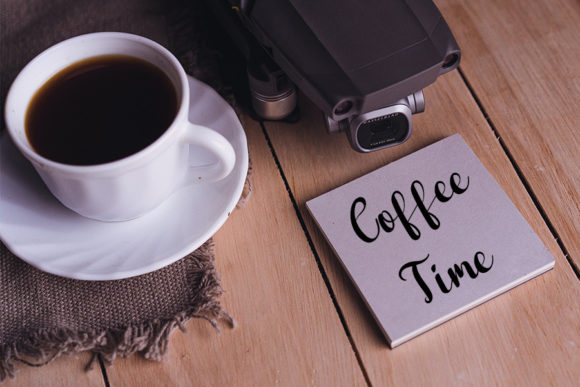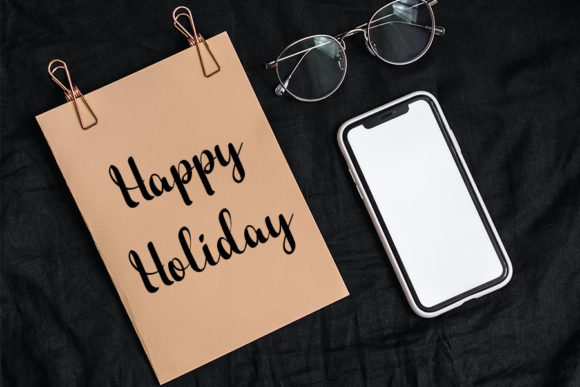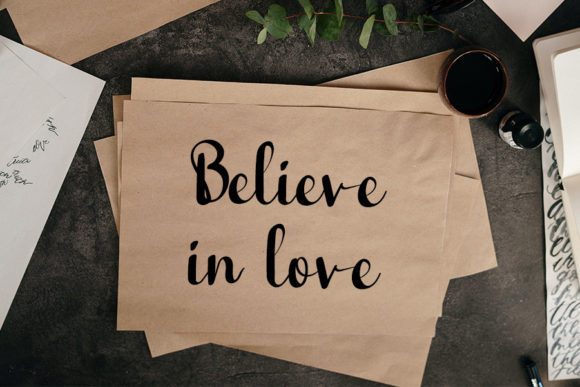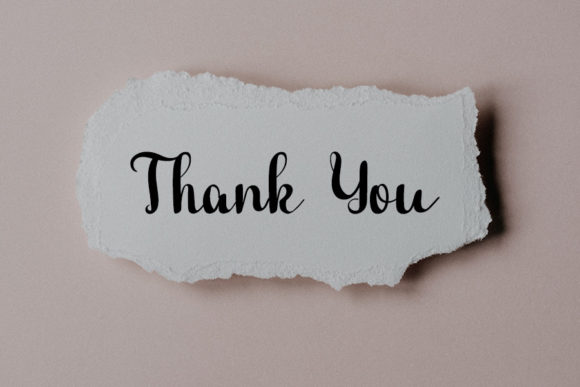
Introducing Cheerleader Font: Elevate Your Designs with Elegance and Class
In the world of typography, fonts play a crucial role in conveying the tone and personality of a design. For designers and crafters looking to add a touch of sophistication and elegance to their projects, the Cheerleader Font is an excellent choice. This trendy handwritten font boasts a contemporary atmosphere and impeccable form, inspired by timeless classic calligraphy.
What Makes Cheerleader Font Stand Out?
Cheerleader Font is a versatile and stylish addition to any design project. Its unique characteristics make it an ideal choice for various applications, from branding and advertising to packaging and digital media. Here are some key features that set Cheerleader Font apart:
- Trendy and Contemporary: Cheerleader Font has a modern and fresh feel, making it perfect for designs that require a current and stylish look.
- Inspired by Classic Calligraphy: The font’s classic calligraphy inspiration gives it an air of sophistication and elegance, adding a touch of refinement to any design.
- Impeccable Form: Cheerleader Font features precise and clean lines, ensuring that your designs look polished and professional.
- Versatile: This font can be used for a wide range of projects, from headings and titles to body text and captions.
How to Use Cheerleader Font in Your Designs
Cheerleader Font can be used to create a variety of products, depending on your design needs. Here are some ideas to get you started:
- Branding and Logos: Use Cheerleader Font to create elegant and sophisticated logos, perfect for high-end brands and businesses.
- Advertising and Marketing: Add a touch of class to your advertising materials, such as brochures, flyers, and posters.
- Packaging: Elevate your product packaging with Cheerleader Font, adding a luxurious feel to your products.
- Digital Media: Use Cheerleader Font in your digital media, such as social media graphics, blog posts, and website headers.
Tips for Getting the Most Out of Cheerleader Font
To make the most of Cheerleader Font, here are some tips to keep in mind:
- Pair with Other Fonts: Experiment with pairing Cheerleader Font with other fonts to create a unique and visually appealing combination.
- Adjust Font Sizes: Play with different font sizes to create visual hierarchy and add emphasis to specific elements in your design.
- Use Color Effectively: Choose colors that complement the elegant and sophisticated feel of Cheerleader Font.
Why Choose Cheerleader Font?
With so many fonts available, why choose Cheerleader Font? Here are some compelling reasons:
- Unique and Exclusive: Cheerleader Font offers a distinctive and exclusive look that will set your designs apart from the crowd.
- High-Quality: This font is designed with high-quality and precision, ensuring that your designs look professional and polished.
In conclusion, Cheerleader Font is an excellent choice for designers and crafters looking to add elegance and class to their design projects. With its trendy and contemporary feel, impeccable form, and versatility, this font is sure to elevate your designs to the next level.